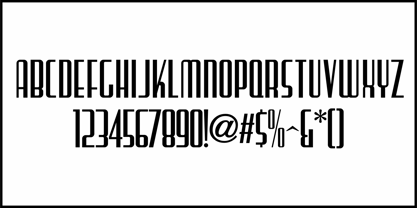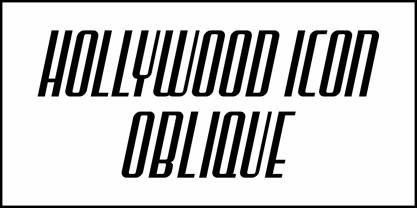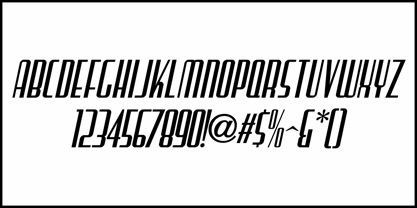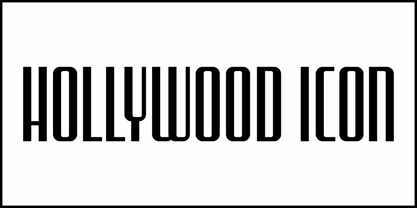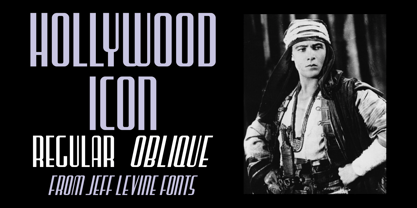
Hollywood Icon JNL
by Jeff Levine
An article in the January, 1943 issue of FilmIndia sported the title " Pictures in Making"; hand lettered in a thick-and-thin, condensed Art Deco sans design.
This inspired Hollywood Icon JNL, which is available in both regular and oblique versions.
Designers: Jeff Levine
Foundry: Jeff Levine